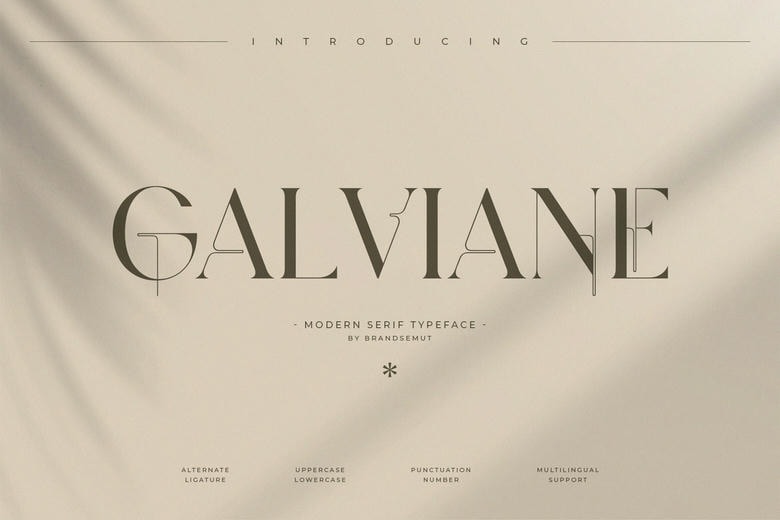
Galviane Font
Galviane is a high-fashion modern serif font that combines the style with innovativeness. With lowercase and uppercase fonts, advanced alternates and ligatures, Galviane is a great choice in strong editorial design, slick branding, and upscale print-oriented environments.
Galviane Artistic Modern Serif Font